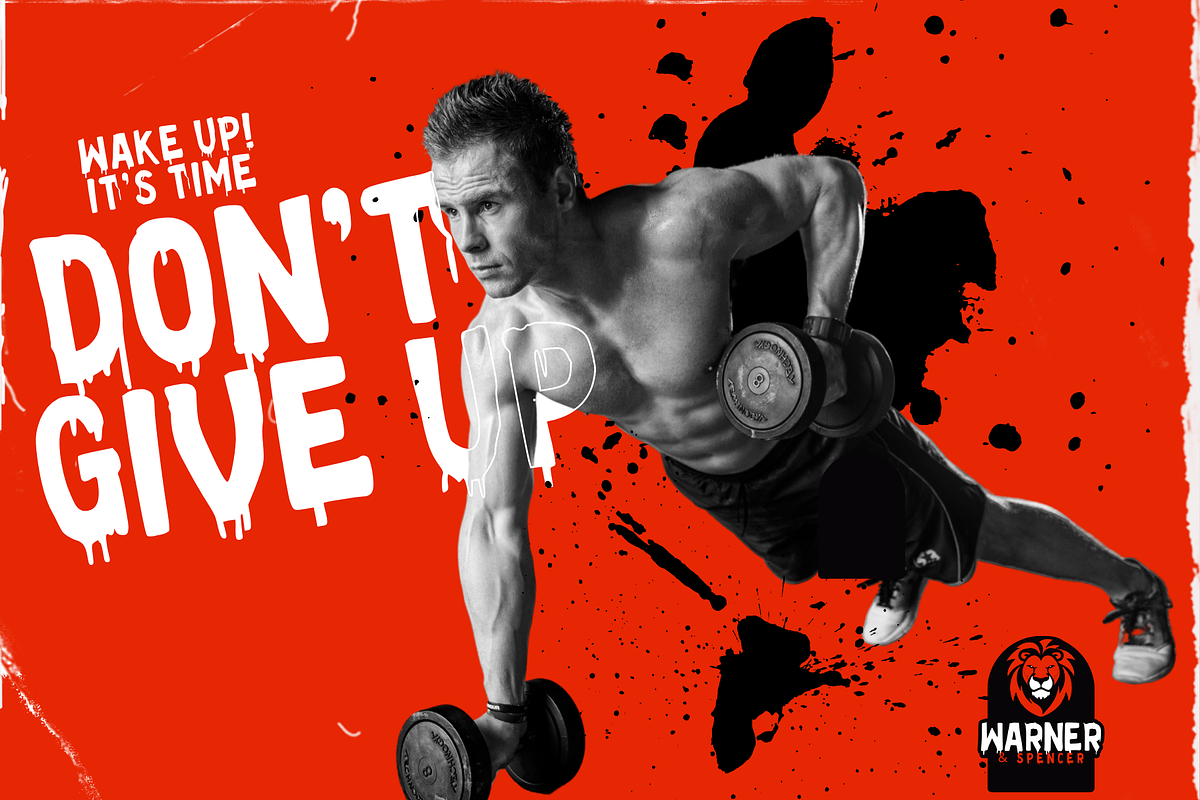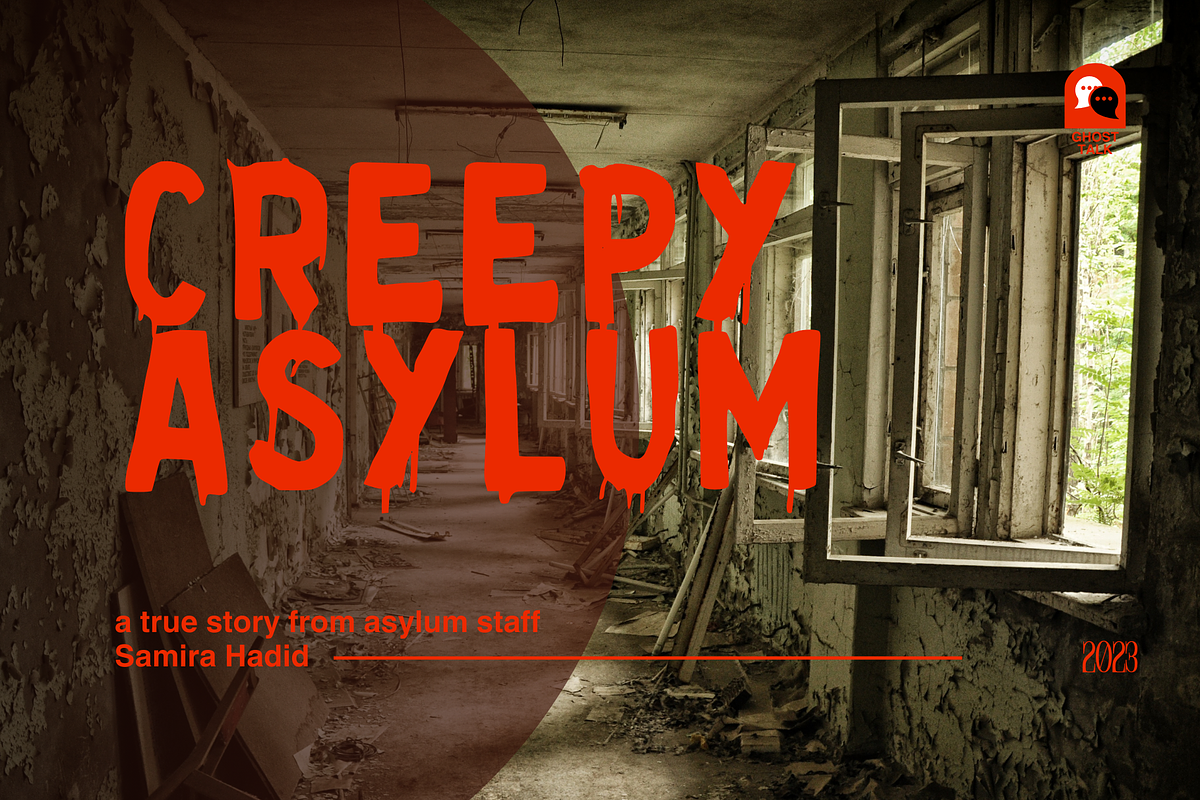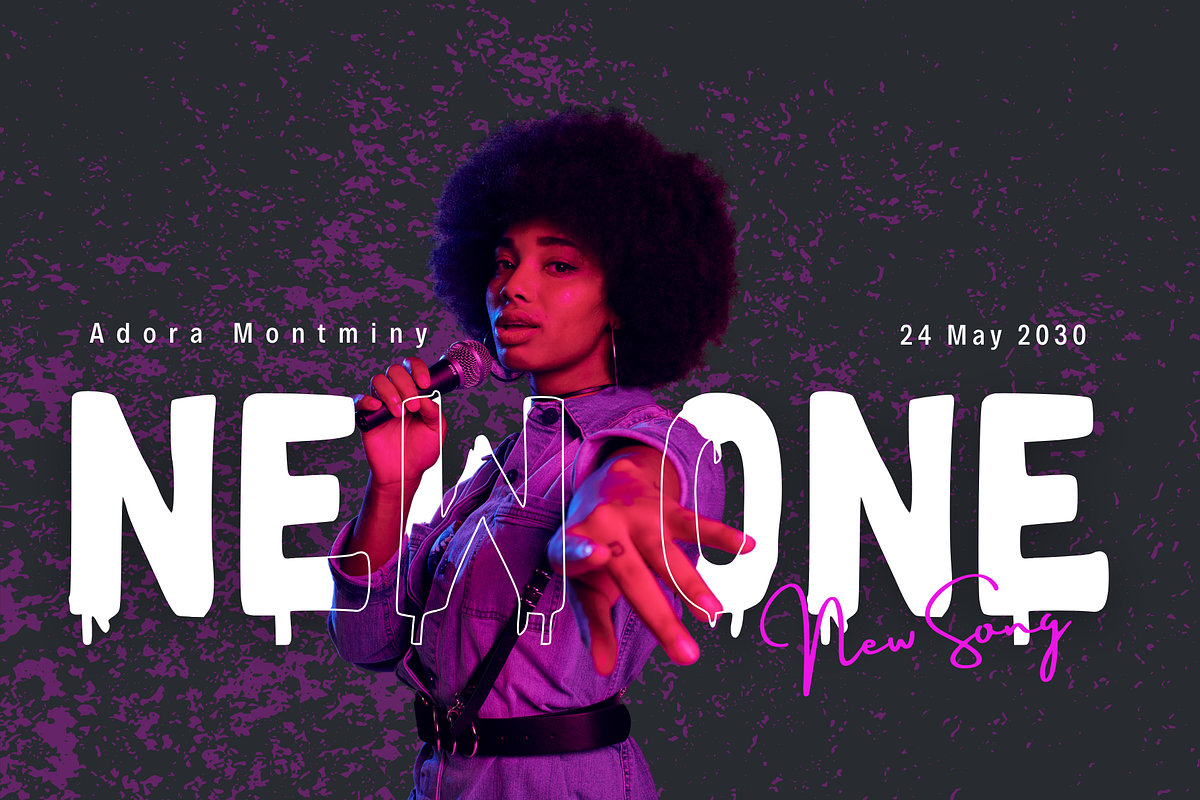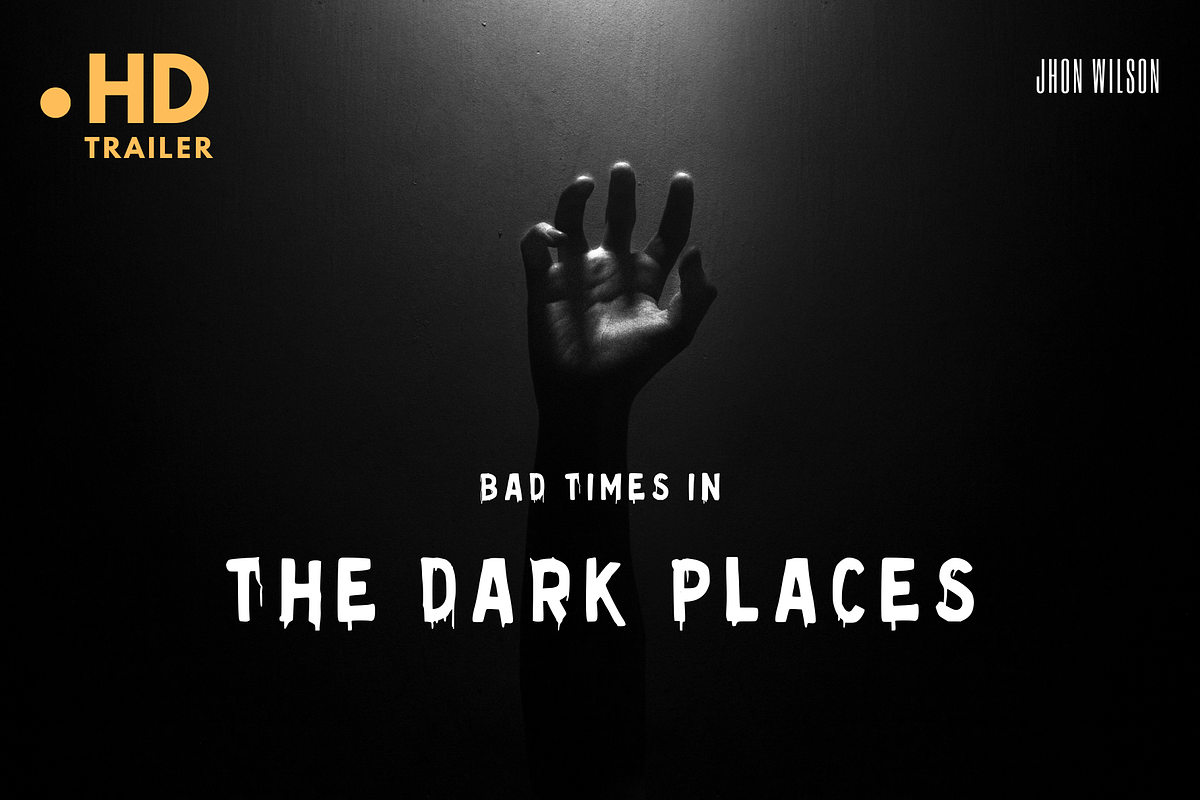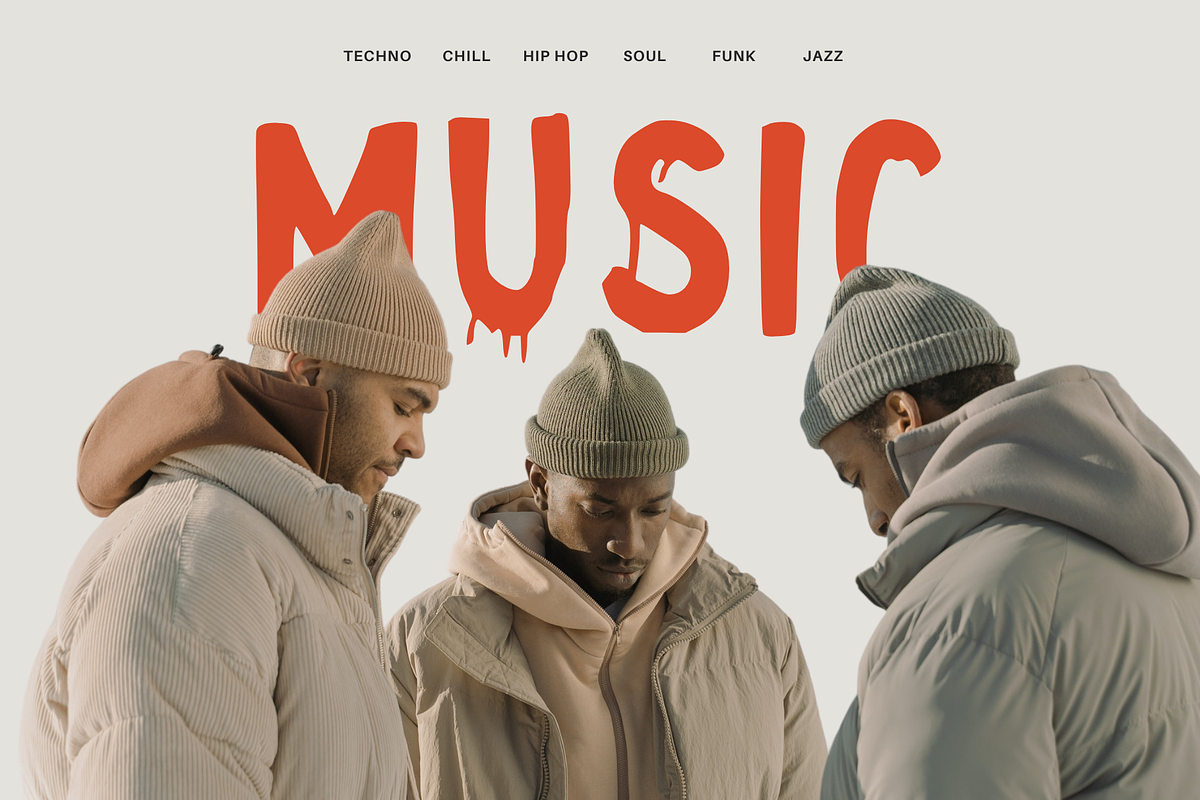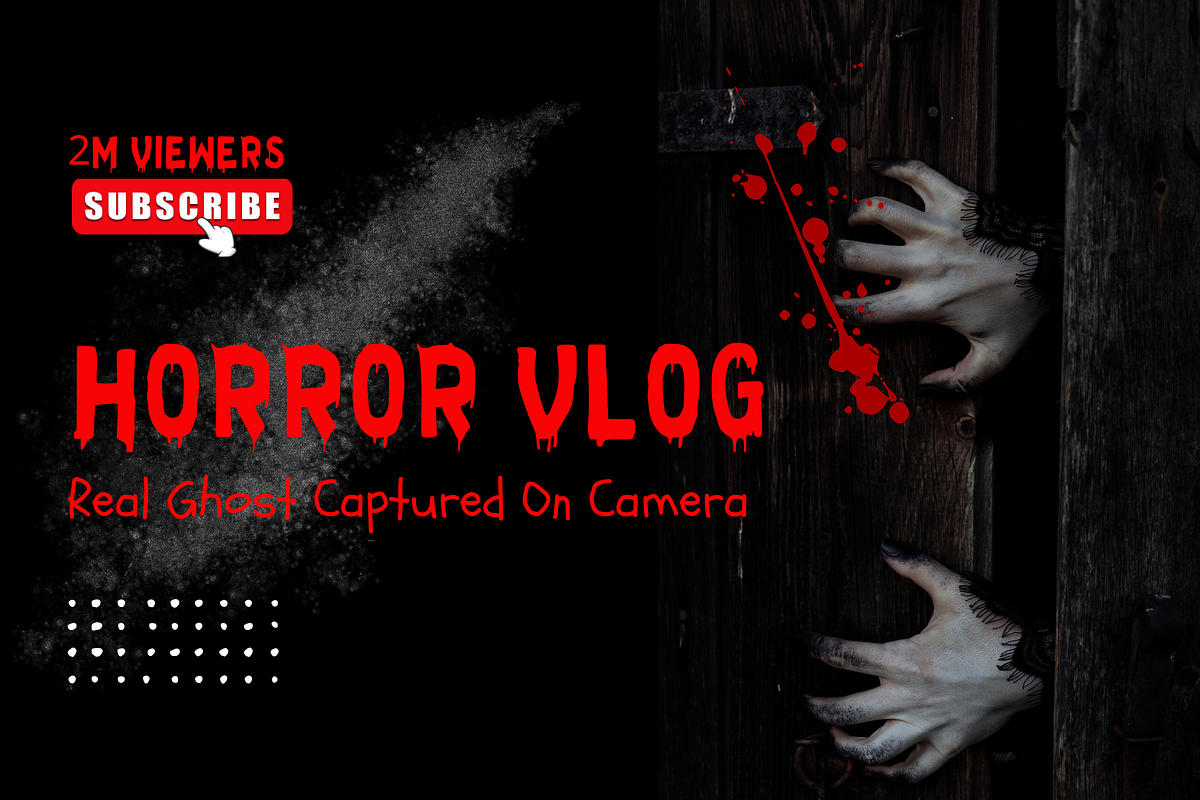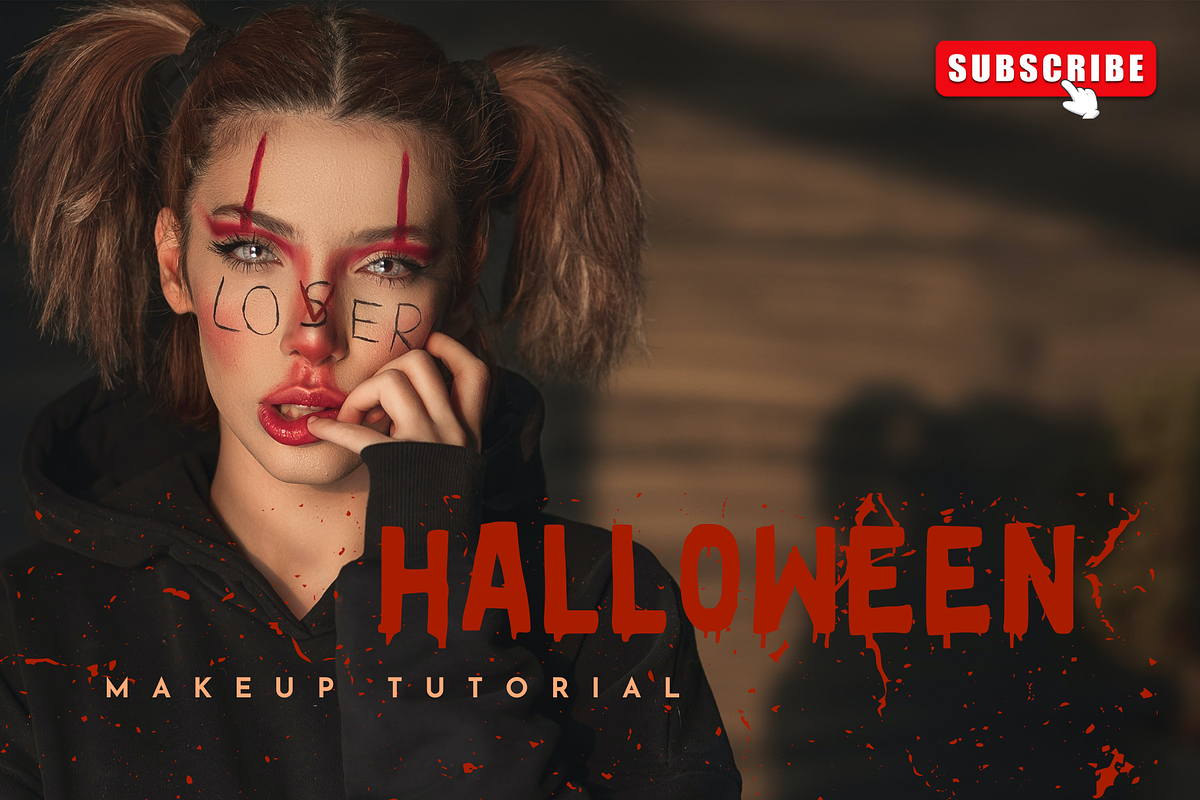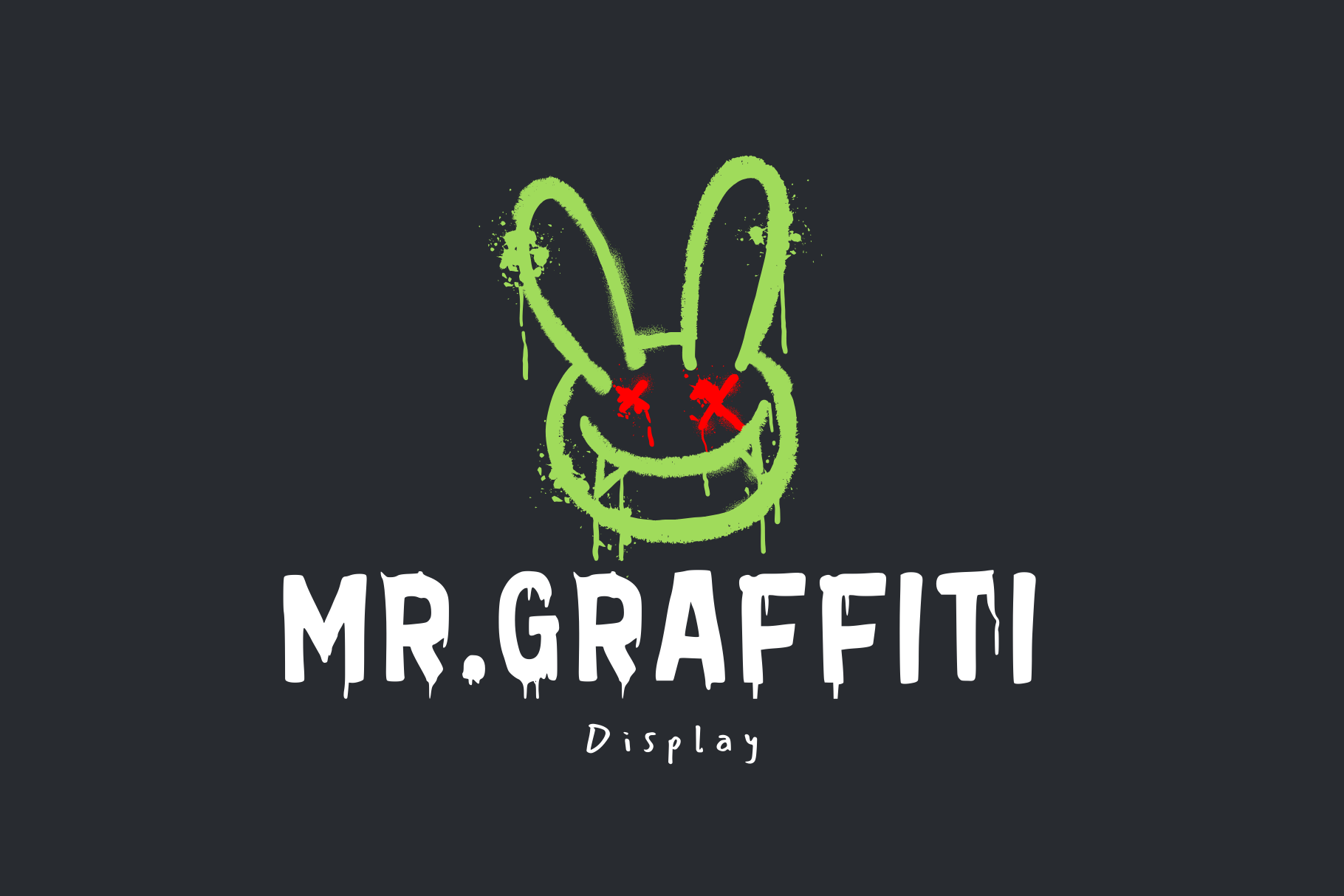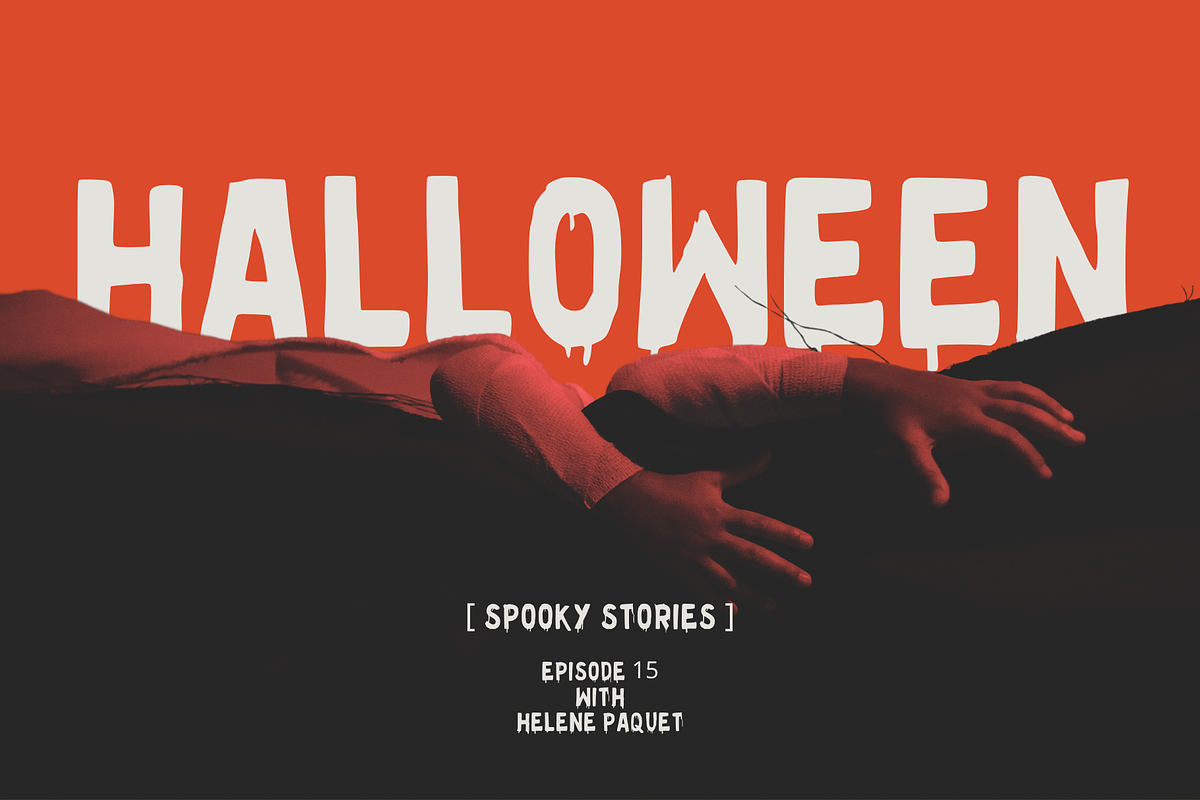
MrGraffiti font
The inspiration from typical street art graffiti and scary movie forms the basis of MrGraffiti, a display font type that's highly suitable for designs related to this theme. This font is ideal for use in various mediums like movies, documentaries, logos, posters, games, book covers, as well as titles, and is also apt for other projects. By incorporating this font into your creative ideas, you will see how it can distinguish your work!